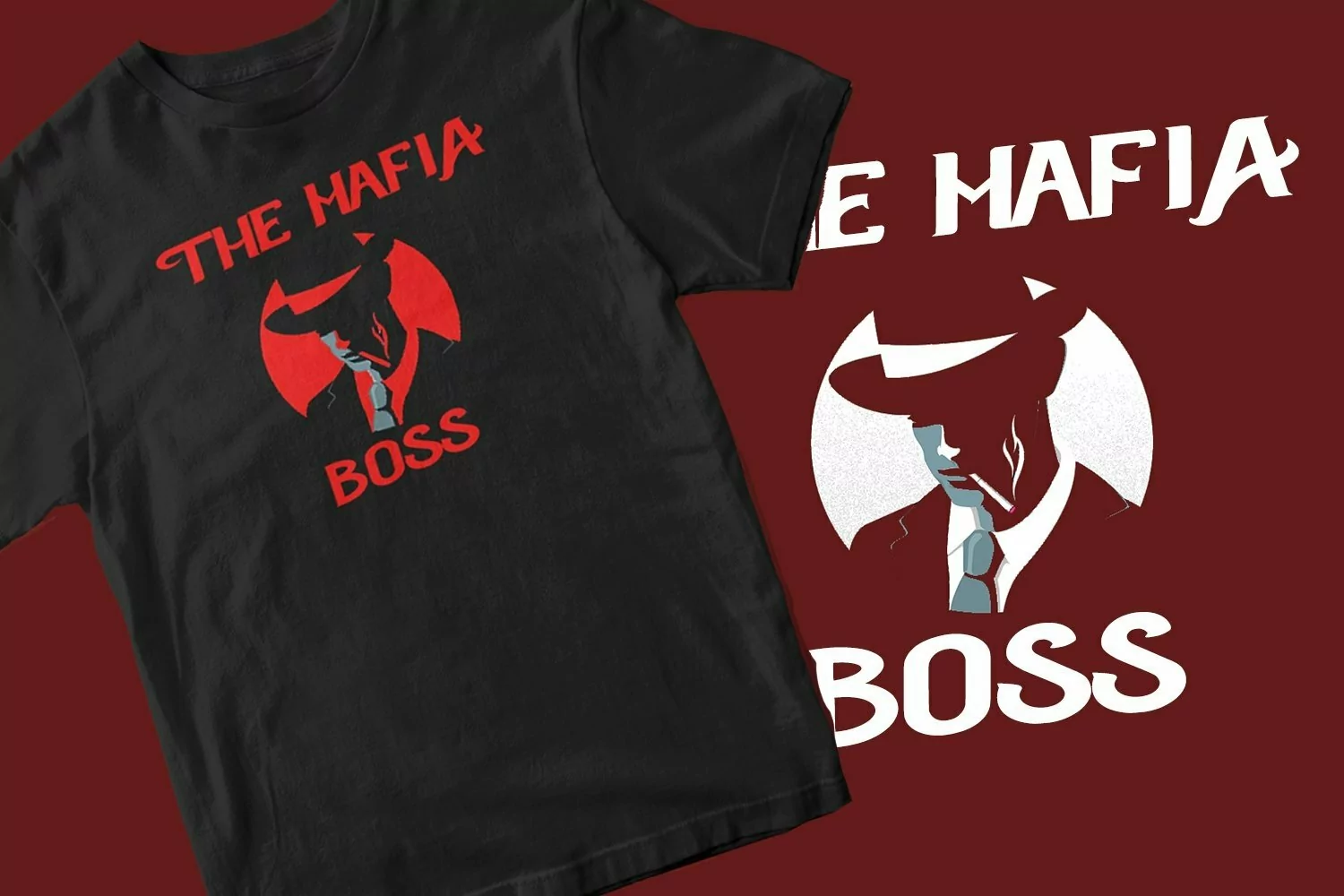
Mavia - Cool Display Font that contain lowercase, uppercase, symbol, and also support multi language. There’s a lot Alternate Character in this font. This Font also comes with ligatures, alternates and many more. this font suitable for fashion, branding, catalog and other design what you want.
Mavia